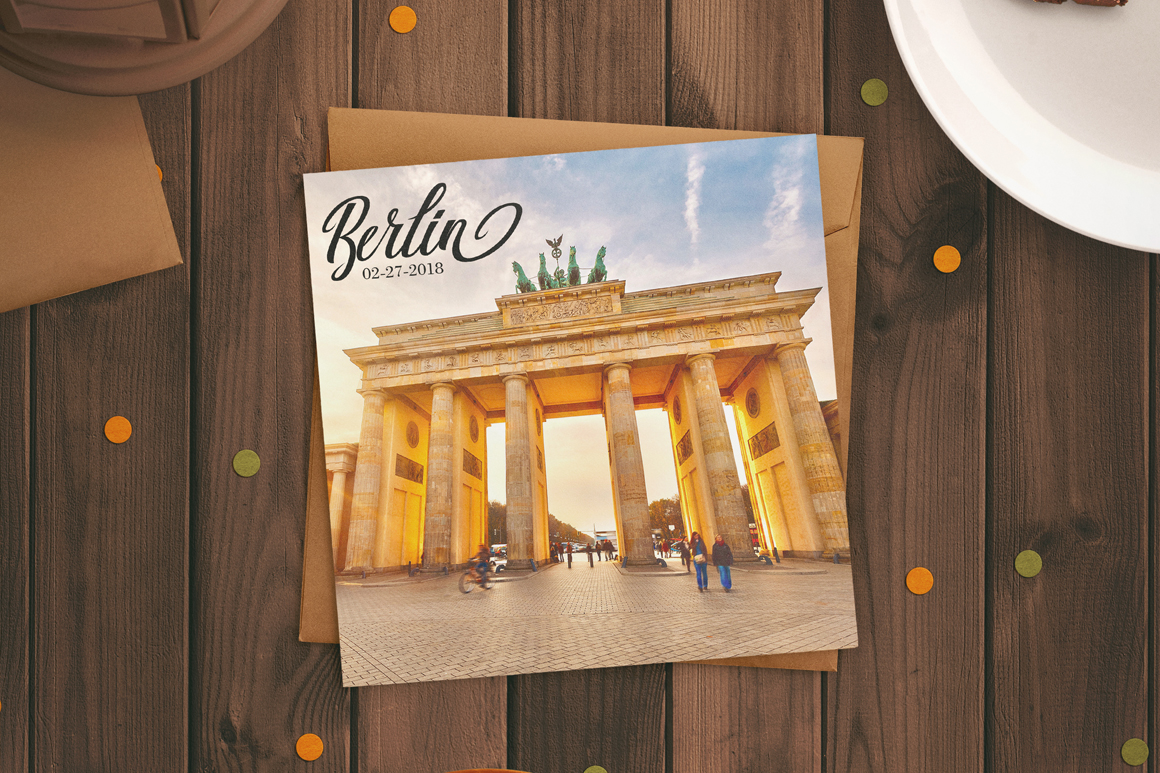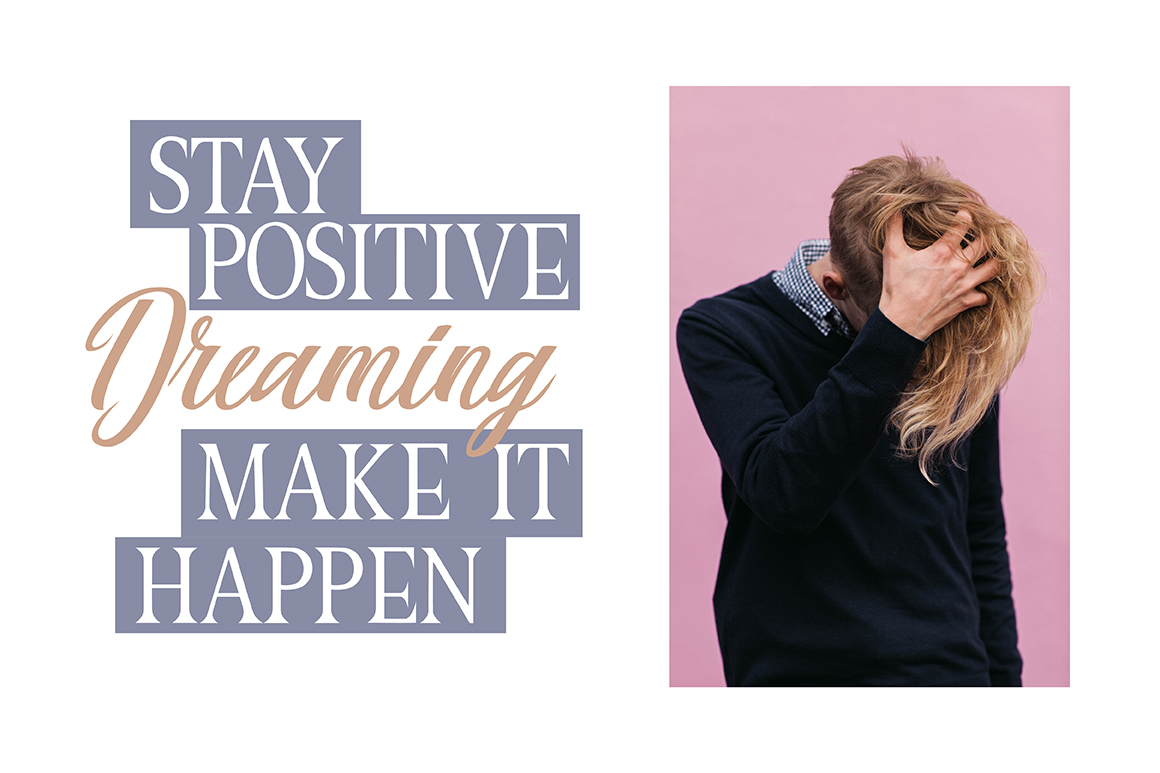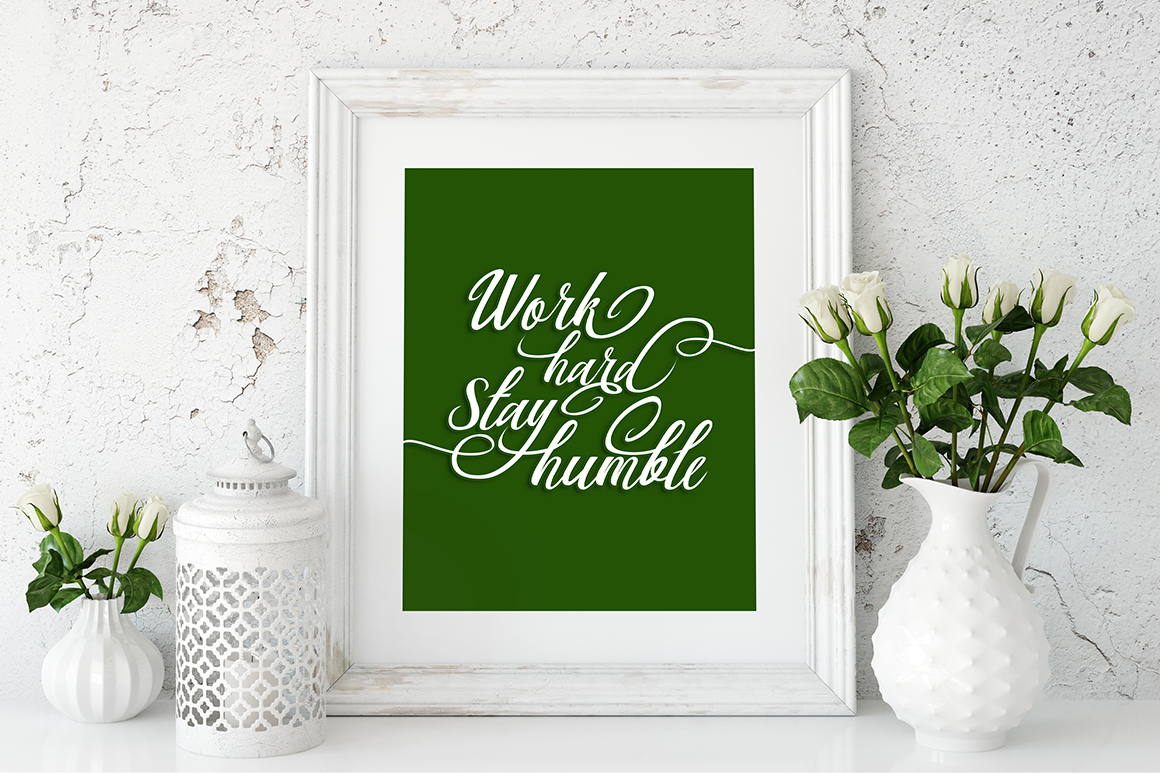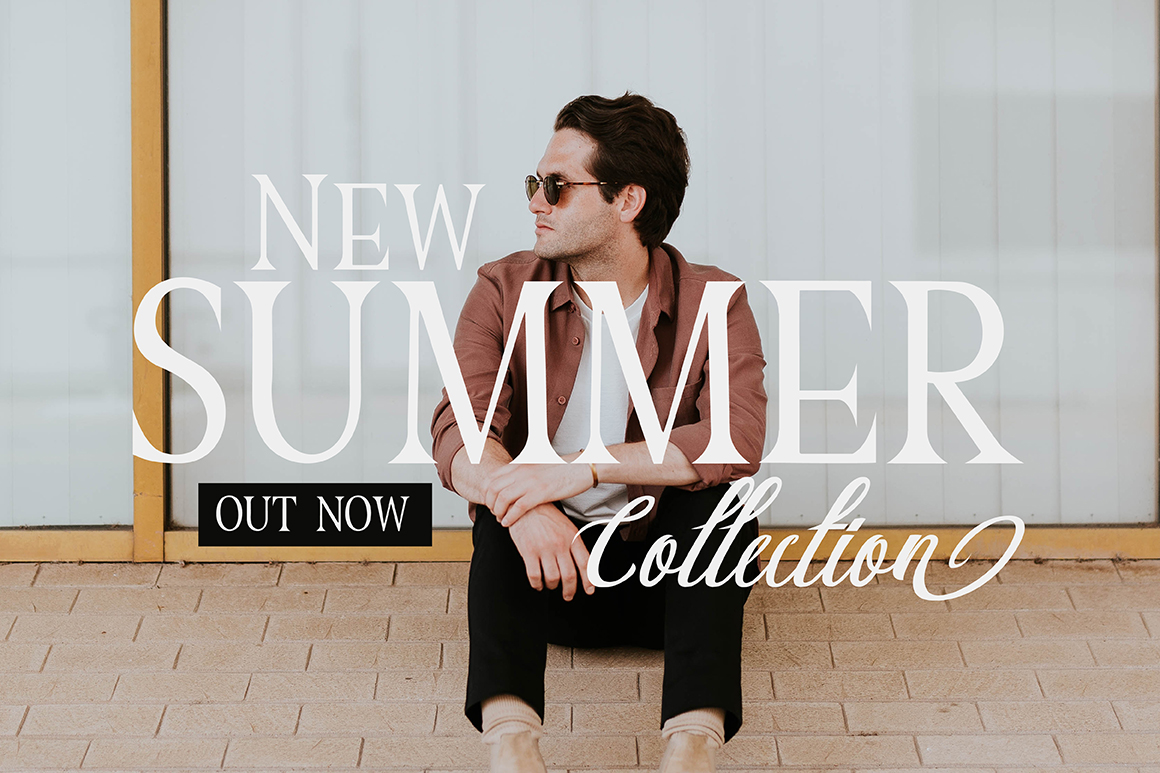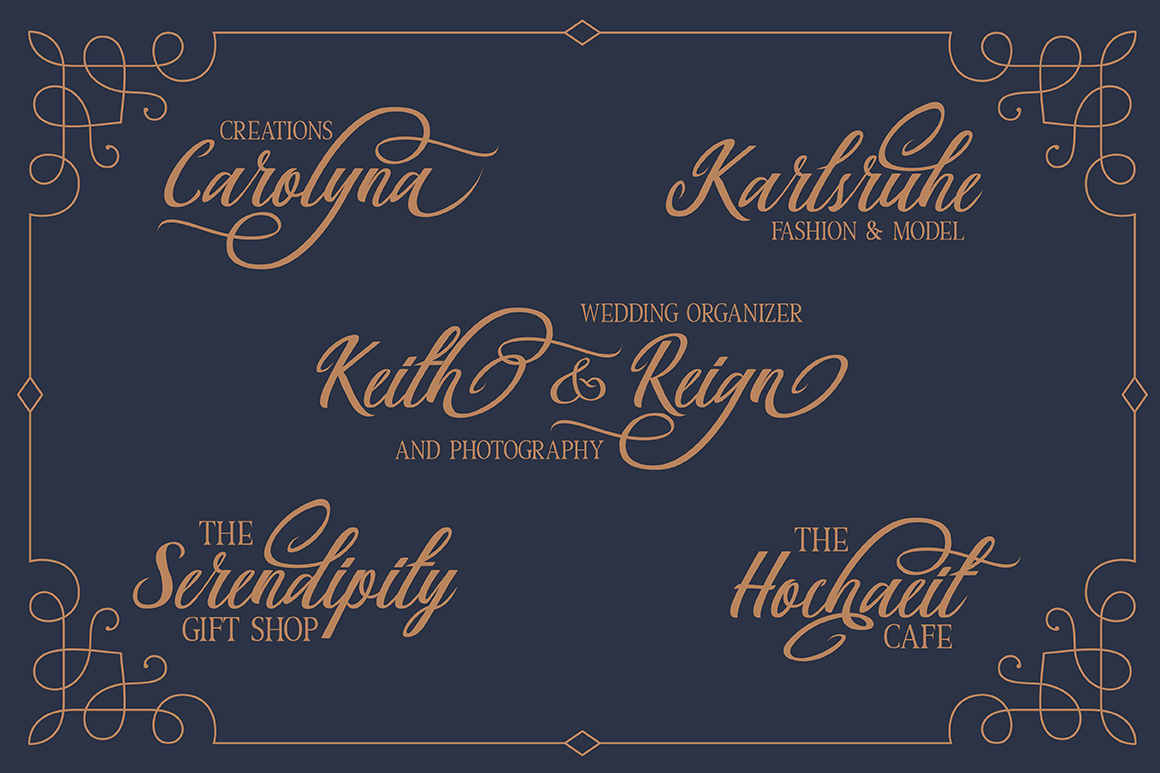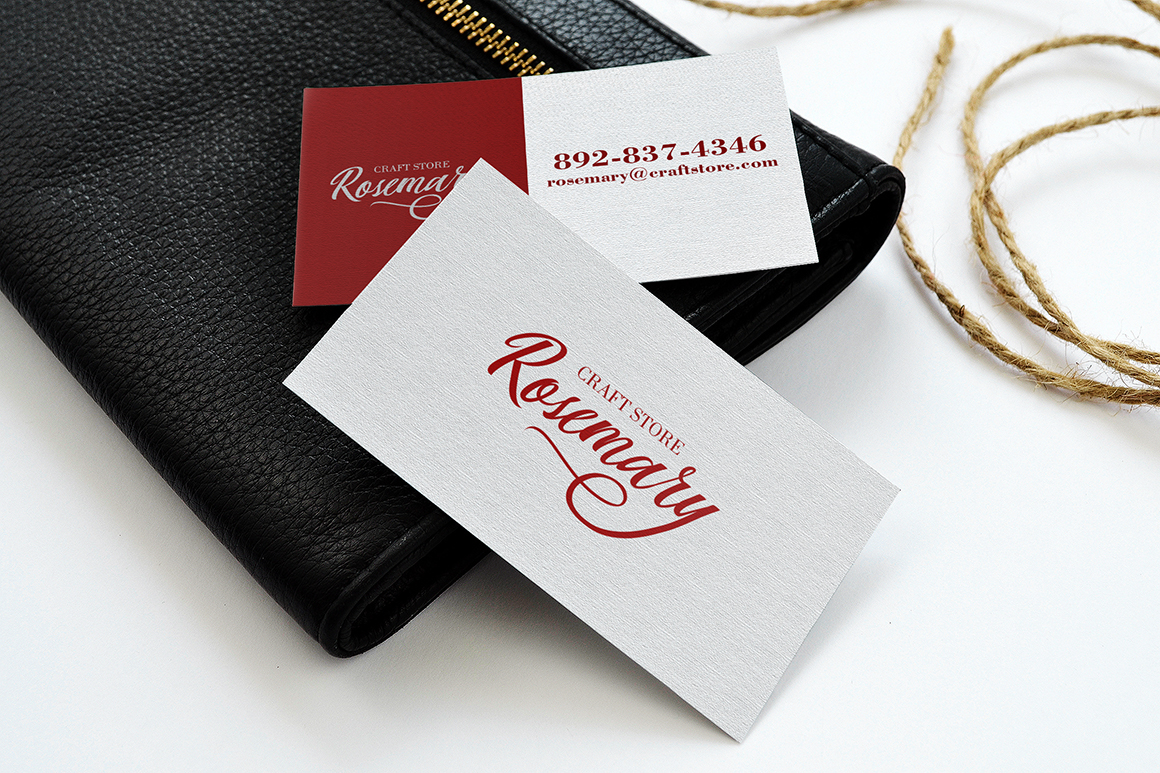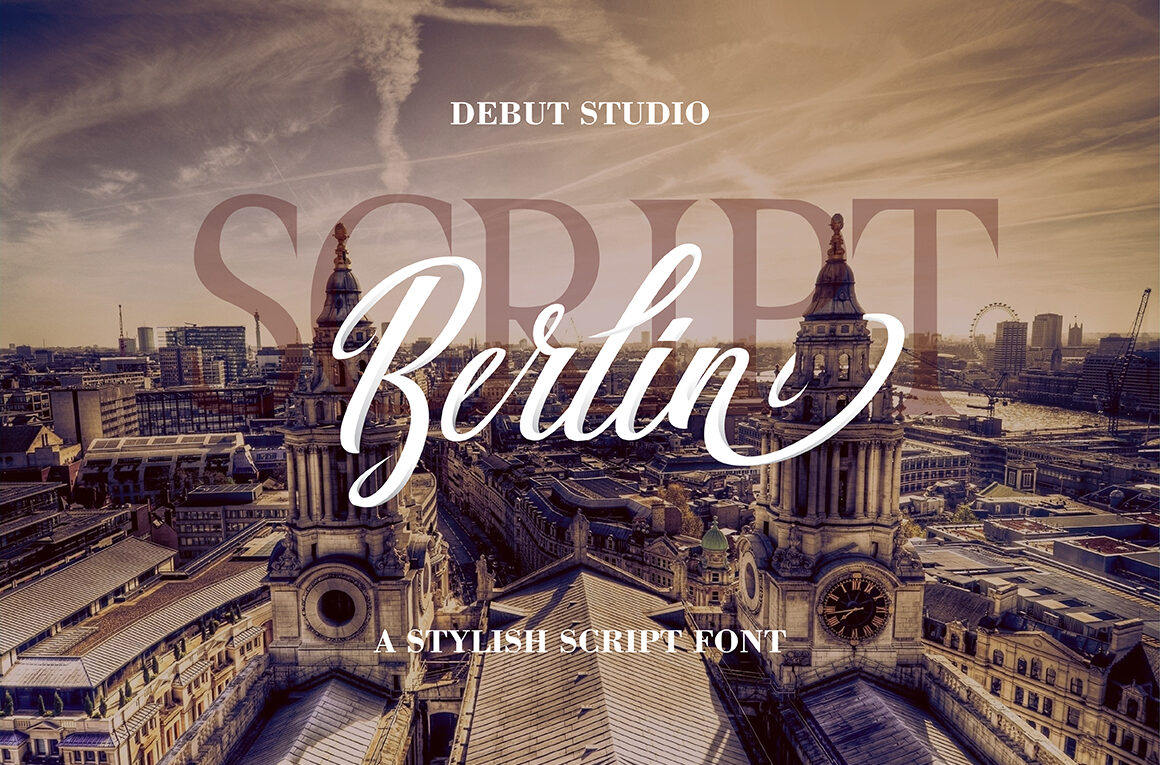
Discover the Elegance of Berlin Script Font: A Perfect Blend of Handwritten and Serif Styles
Are you a designer or crafter looking for a unique and elegant font to elevate your creative projects? Look no further than the Berlin Script Font, a stunning handwritten font that exudes sophistication and style. But that’s not all – this versatile font comes with a matching serif font, called Great, making it a perfect pairing for a wide range of design applications.
What is Berlin Script Font?
Berlin Script Font is a beautiful handwritten font that captures the essence of traditional calligraphy. Its flowing lines, delicate curves, and subtle imperfections give it a personal and organic feel, making it perfect for designs that require a touch of elegance and sophistication. Whether you’re working on a branding project, creating wedding invitations, or designing a logo, Berlin Script Font is sure to impress.
The Perfect Pairing: Great Serif Font
But what really sets Berlin Script Font apart is its matching serif font, Great. This classic serif font is designed to complement the handwritten style of Berlin Script, creating a harmonious pairing that’s perfect for body text, headings, and more. The Great serif font is clean, crisp, and highly legible, making it ideal for designs that require a clear and professional look.
Key Features of Berlin Script Font
- Handwritten style: Berlin Script Font features a beautiful handwritten style with flowing lines and delicate curves.
- Matching serif font: The Great serif font is included, providing a perfect pairing for a wide range of design applications.
- Elegant and sophisticated: Berlin Script Font is perfect for designs that require a touch of elegance and sophistication.
- Highly versatile: This font pairing is suitable for a wide range of design projects, from branding and logos to wedding invitations and more.
Uses for Berlin Script Font
Berlin Script Font and its matching Great serif font are incredibly versatile, making them suitable for a wide range of design projects. Here are just a few ideas to get you started:
- Branding and logos: Create a professional and elegant brand identity with Berlin Script Font and Great serif font.
- Wedding invitations: Add a touch of romance and sophistication to your wedding invitations with Berlin Script Font.
- Stationery and packaging: Use Berlin Script Font and Great serif font to create beautiful stationery and packaging designs.
- Advertising and marketing: Create eye-catching ads and marketing materials with this elegant font pairing.
Tips for Using Berlin Script Font
To get the most out of Berlin Script Font and its matching Great serif font, here are a few tips to keep in mind:
- Use Berlin Script Font for headings: Take advantage of the elegant handwritten style of Berlin Script Font for headings and titles.
- Use Great serif font for body text: The clean and legible Great serif font is perfect for body text and paragraphs.
- Experiment with font sizes and colors: Play around with different font sizes and colors to create visual interest and hierarchy in your designs.
| Author | Debut Studio |
Berlin Script Font and its matching Great serif font are a match made in heaven. This stunning handwritten font and its elegant serif counterpart offer a perfect blend of style, sophistication, and versatility. Whether you’re a designer or crafter, this font pairing is sure to elevate your creative projects and help you achieve professional-looking results. So why wait? Discover the elegance of Berlin Script Font today and take your designs to the next level!